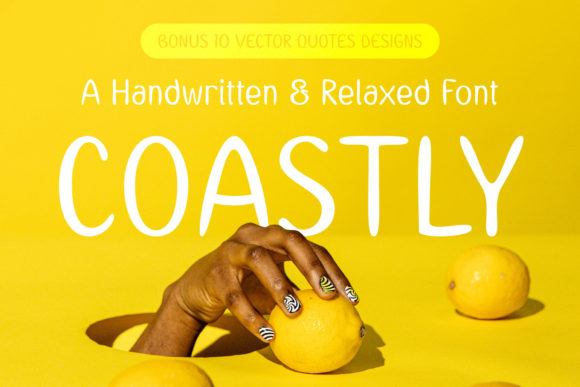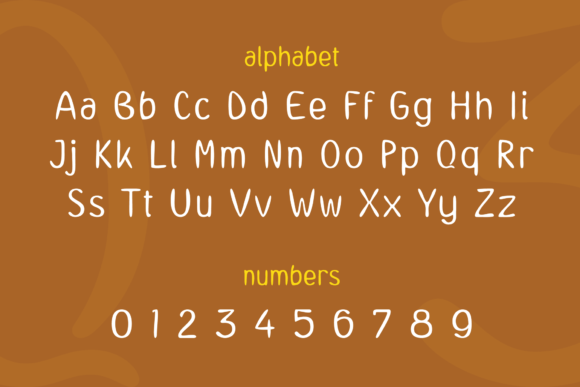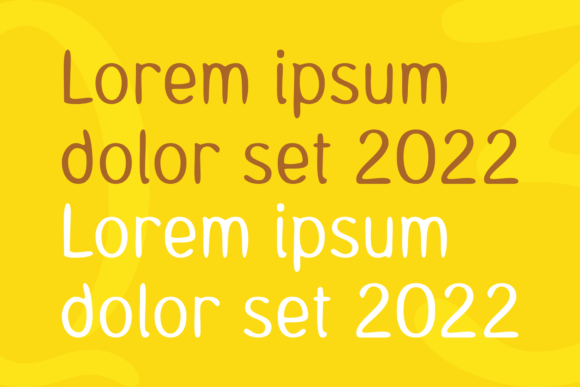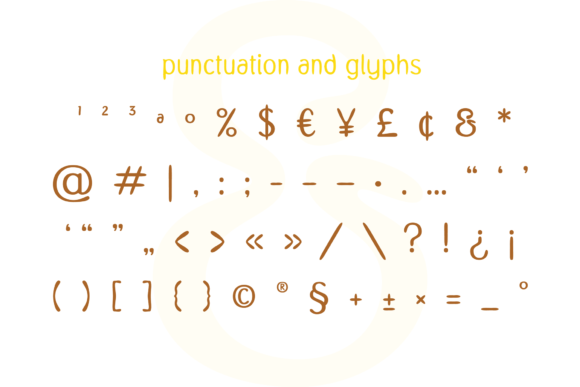
Coastly Font: A Relaxing Handwritten Font for Summer Branding
About the Coastly Font
Crafted with precision, the Coastly Font is ready to bring your ideas to life. Meet Coastly, a handwritten font that makes you think about vacation, summer, holidays, friends, and family. It’s a calm and relaxing font that works great on headlines, posters, product design, quotes, branding, marketing materials, and more.
Coastly is your friendly go-to font that was created with the Amalfi Coast in Italy and its lemons, explaining its name and color palette. Thinking of limoncello, lemonade from freshly squeezed lemons, granita, ice cream, beach, and ferry trips. You can also associate Coastly with yearly holidays like Christmas, Thanksgiving, Easter, New Year’s Eve, Mother’s Day, and so on.
Coastly Font Usage Examples
Coastly Font Example